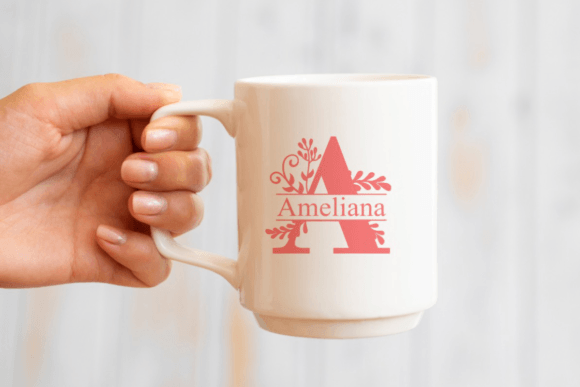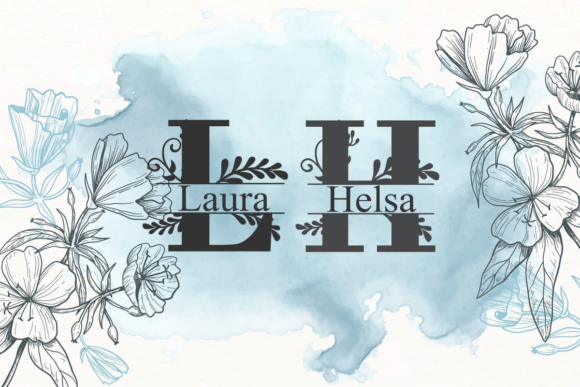
Introducing Arinduni Monogram Font: A Harmonious Blend of Elegance and Nature
In the world of typography, few fonts manage to capture the essence of elegance and natural beauty as effortlessly as Arinduni Monogram Font. This exquisite font is a masterful blend of letterforms and floral motifs, meticulously designed to create a captivating combination of ornate initials and delicate blossoms. Whether you’re a designer looking to add a touch of sophistication to your project or a crafter seeking to infuse your work with a personal touch, Arinduni Monogram Font is the perfect choice.
The Inspiration Behind Arinduni Monogram Font
Arinduni Monogram Font draws inspiration from the intricate patterns and motifs found in nature. Each letterform is carefully crafted to incorporate delicate floral elements, creating a sense of movement and fluidity. The result is a font that exudes elegance and refinement, making it ideal for a wide range of applications, from wedding invitations and stationery to branding and packaging.
Key Features of Arinduni Monogram Font
- Unique Letterforms: Arinduni Monogram Font features beautifully crafted letterforms that are both ornate and delicate. Each letter is designed to stand alone as a decorative piece, making it perfect for monograms, initials, and other typographic applications.
- Floral Motifs: The font’s floral motifs are intricately designed to add a touch of natural beauty to your project. From delicate blossoms to intricate patterns, the floral elements in Arinduni Monogram Font are sure to impress.
- Versatility: Arinduni Monogram Font is incredibly versatile, making it suitable for a wide range of applications. Whether you’re designing a wedding invitation, a logo, or a craft project, this font is sure to add a touch of elegance and sophistication.
- Ease of Use: Despite its intricate design, Arinduni Monogram Font is surprisingly easy to use. The font is compatible with most design software, making it simple to incorporate into your project.
Using Arinduni Monogram Font in Your Design
Arinduni Monogram Font is perfect for designers and crafters looking to add a touch of elegance and sophistication to their work. Here are a few ideas for using this beautiful font:
- Wedding Invitations: Use Arinduni Monogram Font to create stunning wedding invitations that set the tone for a beautiful and elegant wedding.
- Stationery: Add a touch of sophistication to your stationery with Arinduni Monogram Font. Perfect for business cards, letterheads, and more.
- Branding: Use Arinduni Monogram Font to create a unique and memorable brand identity. The font’s elegant and refined design makes it perfect for luxury brands and high-end products.
- Crafting: Arinduni Monogram Font is also perfect for crafters looking to add a personal touch to their work. Use the font to create beautiful monograms, decorative letters, and more.
Tips for Getting the Most Out of Arinduni Monogram Font
To get the most out of Arinduni Monogram Font, here are a few tips:
- Experiment with Different Sizes: Arinduni Monogram Font looks beautiful in a variety of sizes. Experiment with different sizes to find the perfect fit for your project.
- Combine with Other Fonts: Arinduni Monogram Font pairs beautifully with other fonts. Try combining it with a simple sans-serif font for a striking contrast.
- Use in Combination with Images: The font’s floral motifs make it a perfect match for images of flowers, greenery, and other natural elements.
Arinduni Monogram Font is a truly unique and beautiful font that is sure to add a touch of elegance and sophistication to any project. With its captivating combination of ornate initials and delicate blossoms, this font is perfect for designers and crafters looking to create something truly special. Whether you’re designing a wedding invitation, a logo, or a craft project, Arinduni Monogram Font is the perfect choice.